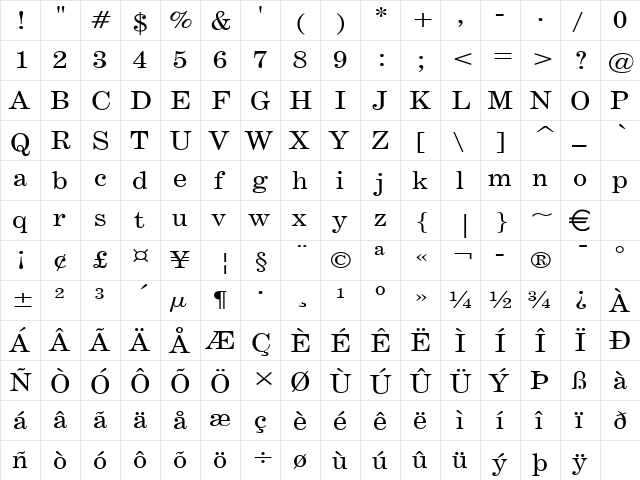
AnnualWide Normal
Design Context for AnnualWide Typeface
AnnualWide is a composed and adaptable typeface that performs quietly and consistently across a wide range of design contexts.